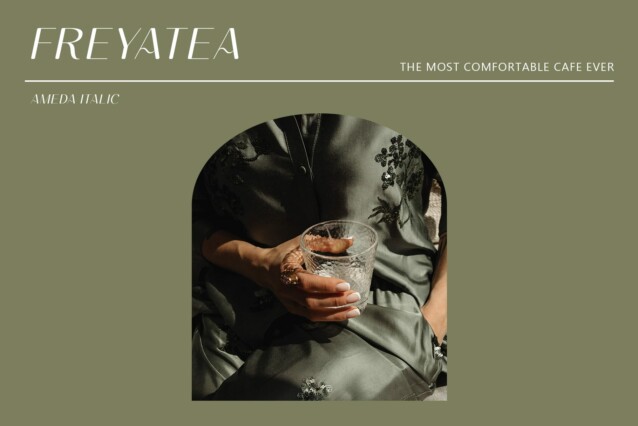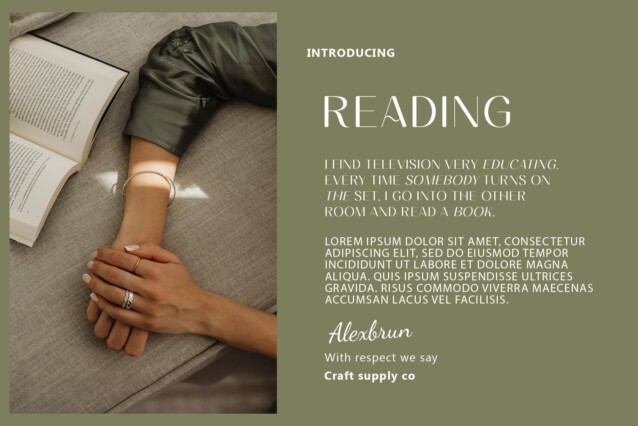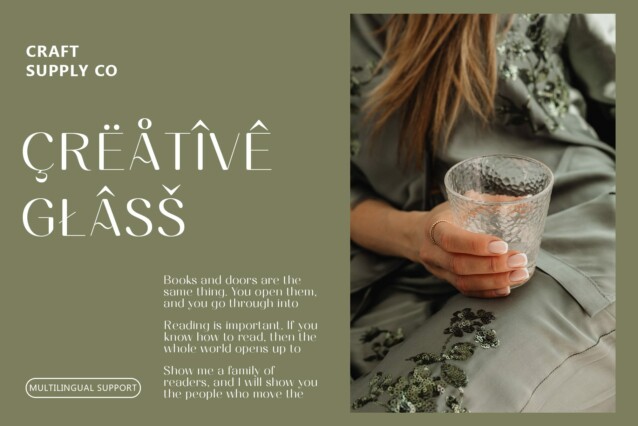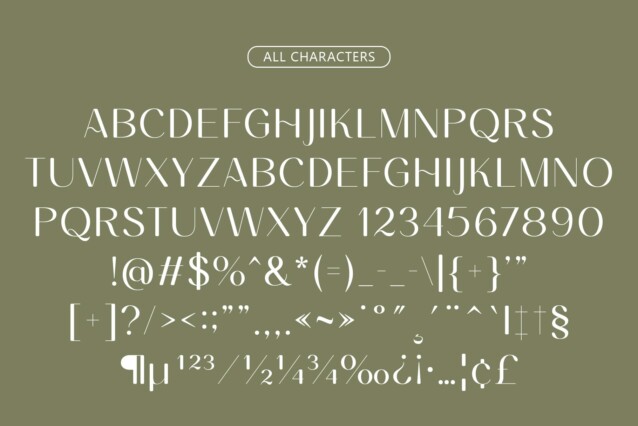
Ameda Rounded Font
Ameda Rounded Font: Elevating Minimalist Elegance. High Contrast, Modern Form Ameda Rounded features a sleek sans serif design with striking high contrast, embodying a modern aesthetic that catches the eye effortlessly.
Rounded Stroke for Soft Elegance The font’s rounded strokes add a touch of softness and elegance, balancing its modern form with a subtle warmth that appeals to the minimalist sensibility.